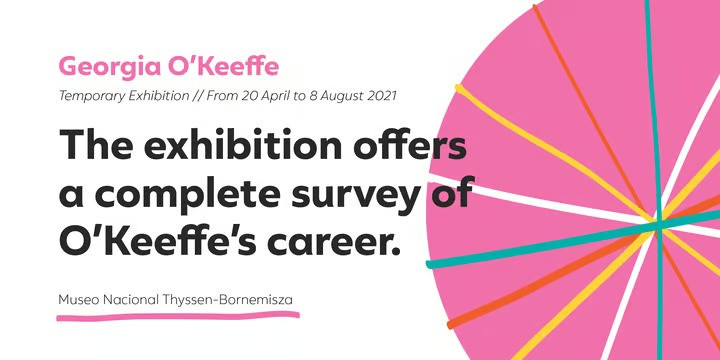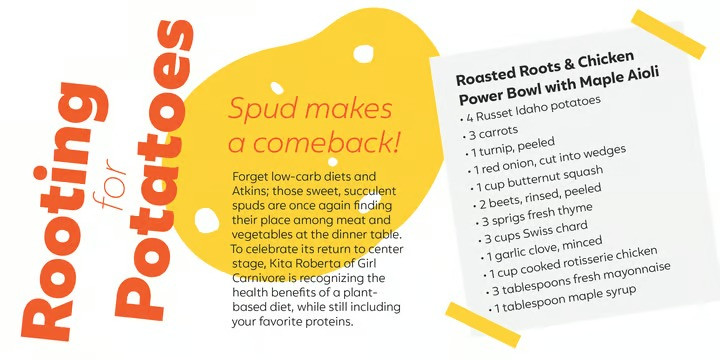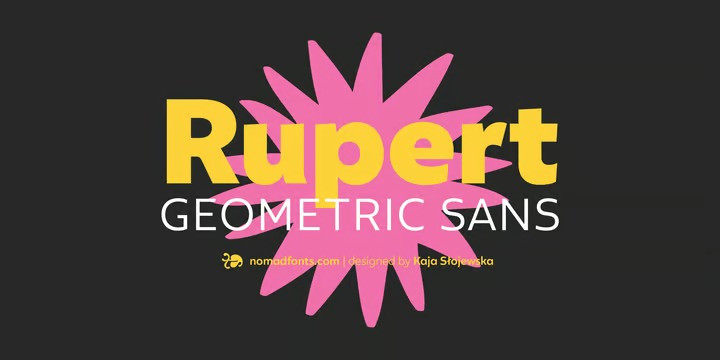
Rupert Font
Rupert Sans Serif Font is your new best friend! the type who’s truly happy when you’re happy, excited when you’re excited, and sad when you’re sad. He’s always has your back and is never judgemental.
Rupert is a geometric sans-serif consisting of 8 weights, ranging from Thin to Black with matching italics. At the moment he supports extended Latin and plans on growing in the future to cover all of your needs. Rupert’s OpenType features include tabular and old-style figures, fractions, ligatures and case-sensitive forms.
He’s flexible to accommodate all of your graphic needs including display, corporate, editorial, web and many more environments. And the best part is… Rupert Light is free to download! So grab it now and begin building great work together.